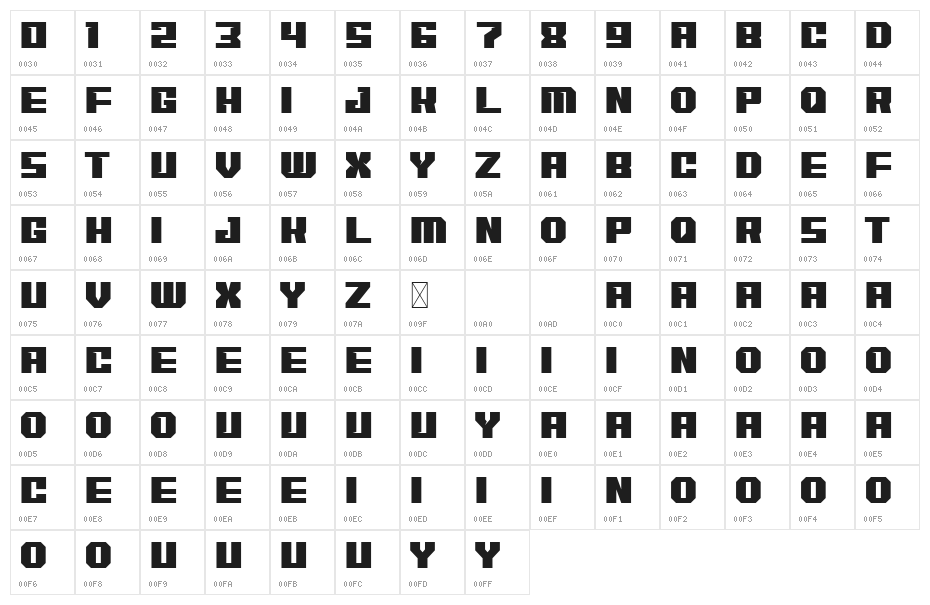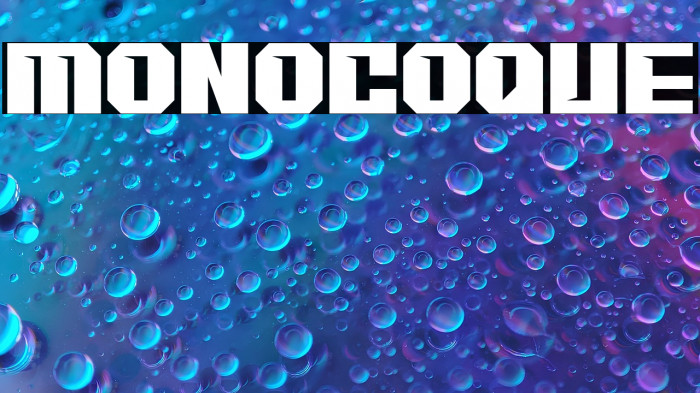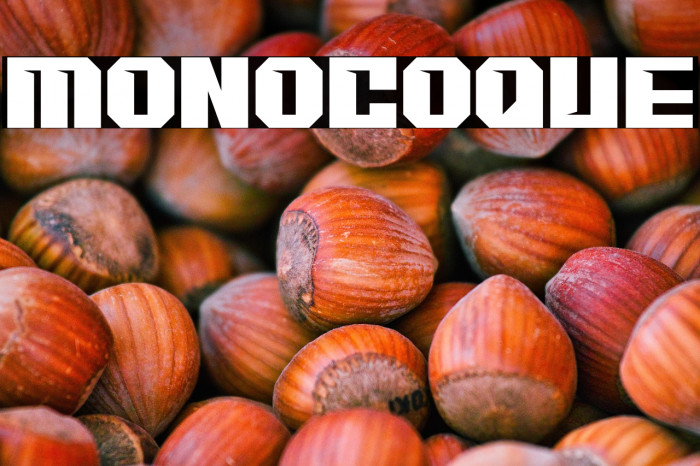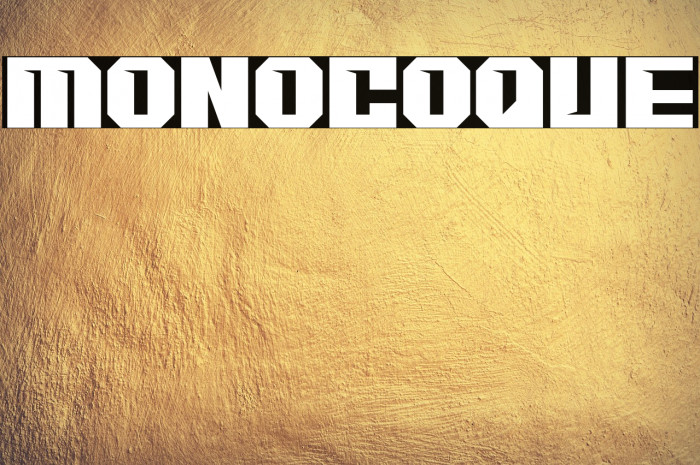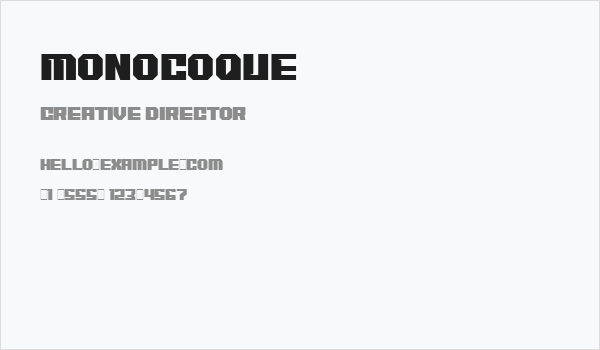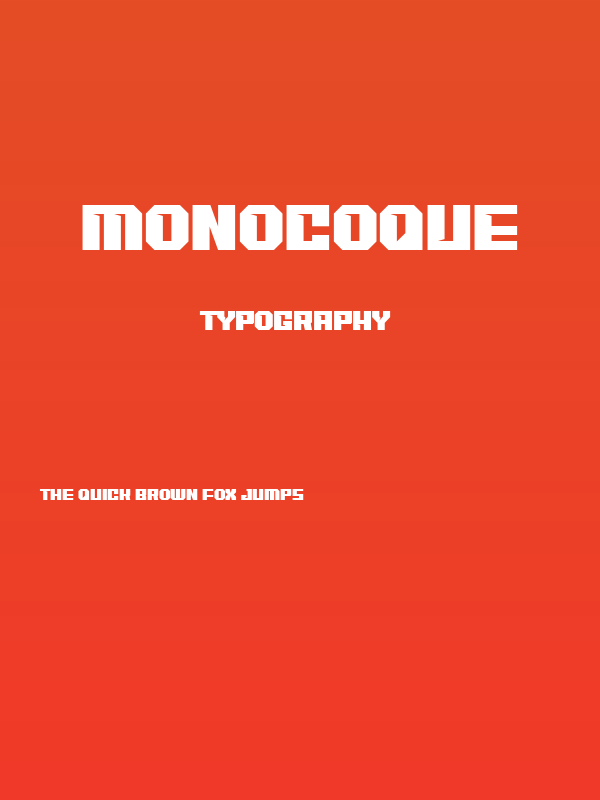
MONOCOQUE Font
MONOCOQUE Description
This font features a bold, geometric design with a strong presence. The characters are constructed with sharp angles and straight lines, giving it a futuristic and industrial feel. The uppercase letters are particularly striking, with a blocky appearance that commands attention. The numbers and special characters maintain the same bold style, ensuring consistency across all elements. This font is ideal for projects that require a modern and impactful look.
| Proposed Projects | Ideal for branding, posters, and headlines that require a strong, modern aesthetic. |